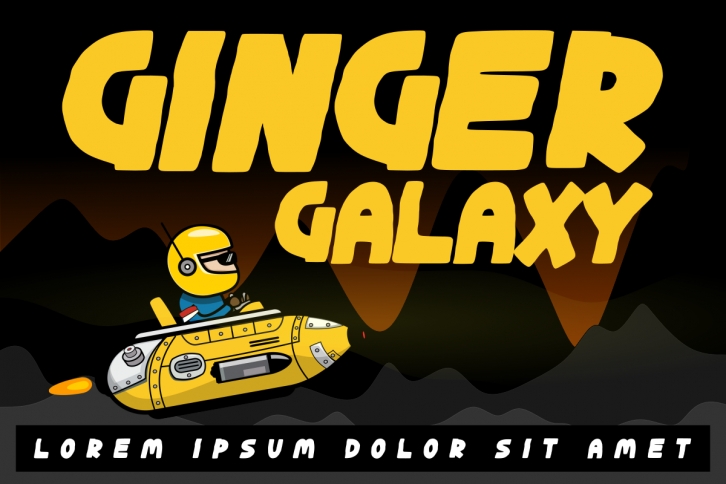
Ginger Galaxy is a gorgeous font that was realeased on January 25, 2020. The font can be used in many style contexts and design environments. Perfect for invitations, magazines, websites, logos, and more! It was designed by deedeetype and the file size is 15.13 MB. Thanks for checking out this font!